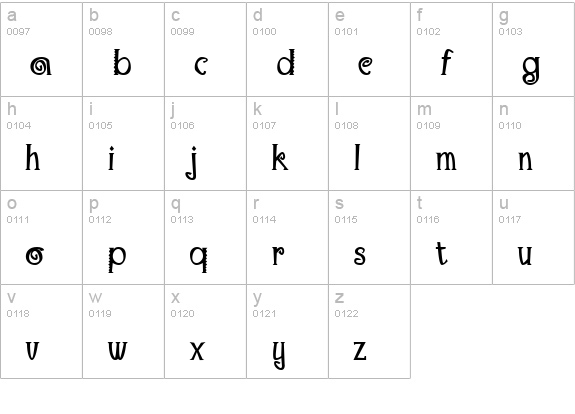
Maraca Bold is a strong, high-contrast variant in the Maraca typeface family \xE2\x80\x94 well suited to headlines, attention-grabbing titles, and strong calls-to-action.
Maraca Bold font is a stunning and eye-catching typeface that will add a touch of elegance to any design project. Its bold and confident letterforms make a strong impression, making it perfect for headlines, logos, and display text. This font exudes a sense of modernity and sophistication, making it ideal for contemporary designs. With its clean lines and well-defined shapes, Maraca Bold font commands attention and brings a sense of professionalism to any design. Whether you're creating a website, designing a poster, or crafting a business card, this font will make your text stand out and leave a lasting impact on your audience. One of the best things about Maraca Bold font is that it is free to download. FontsMarket.com offers this font for free, making it accessible to designers and creatives of all levels. This means that you can enhance your designs without breaking the bank, making Maraca Bold font a valuable addition to your font library. Not only is Maraca Bold font visually appealing, but it is also highly versatile. It can be used across a range of design projects, from print to digital. Its legibility and readability ensure that your message will be clear and easy to understand, even from a distance. In conclusion, Maraca Bold font is a must-have for anyone looking to add a touch of elegance and sophistication to their designs. Its bold and confident letterforms make a strong impression, while its versatility and accessibility make it an invaluable asset for designers. Download Maraca Bold font for free at FontsMarket.com and elevate your designs to the next level.